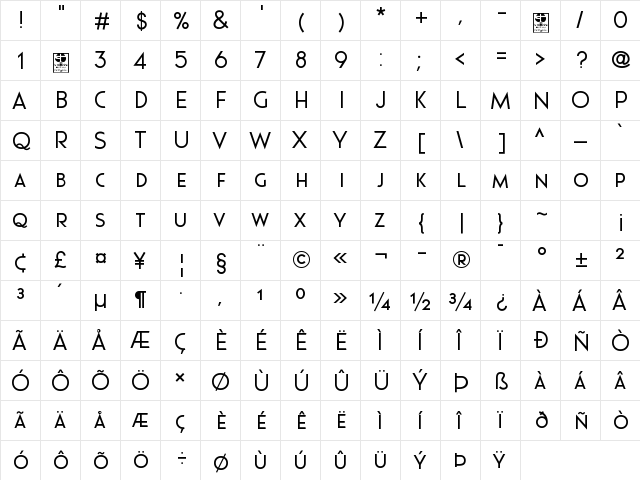
Pages Grotesque Demo Regular
| Foundry | StudioTypo |
| Designer | Mehmet Abac |
Design Context for Pages Grotesque Demo Typeface
Pages Grotesque Demo offers clean, dependable letterforms without strong stylistic allegiance, making it a practical choice for designers who need flexibility.